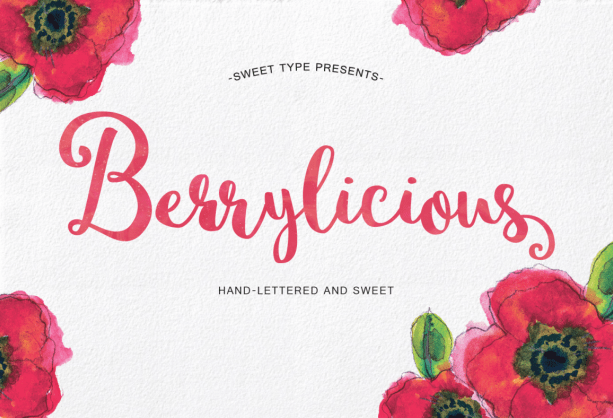
Berrylicious
About Berrylicious
Introducing Berrylicious! A new hand-lettered typeface. Due to popular demand, this font has many of the same sweet feminine qualities as Sweet Peony but much bolder dynamic strokes, and the weight is carried slightly off-set as the characters dance along…